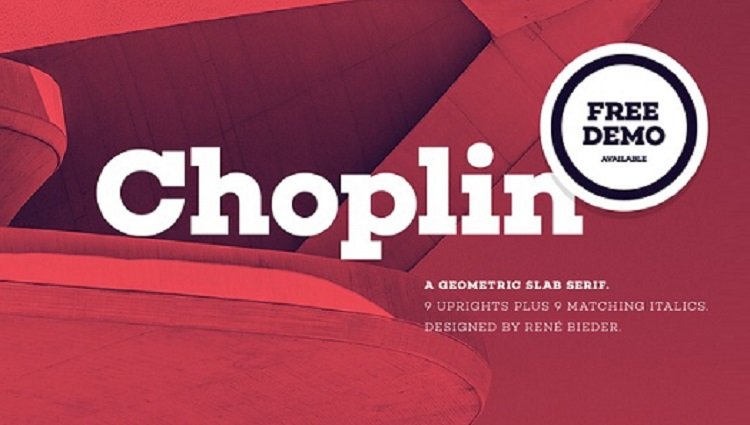
Choplin Typeface
Choplin is a modern and clear geometric slab serif with a sturdy heart. It was designed based on the Campton Family, with the same principles in mind: geometry, simplicity and neutrality. As a consequence, Choplin could be seen as an immediate companion to the Campton Family.